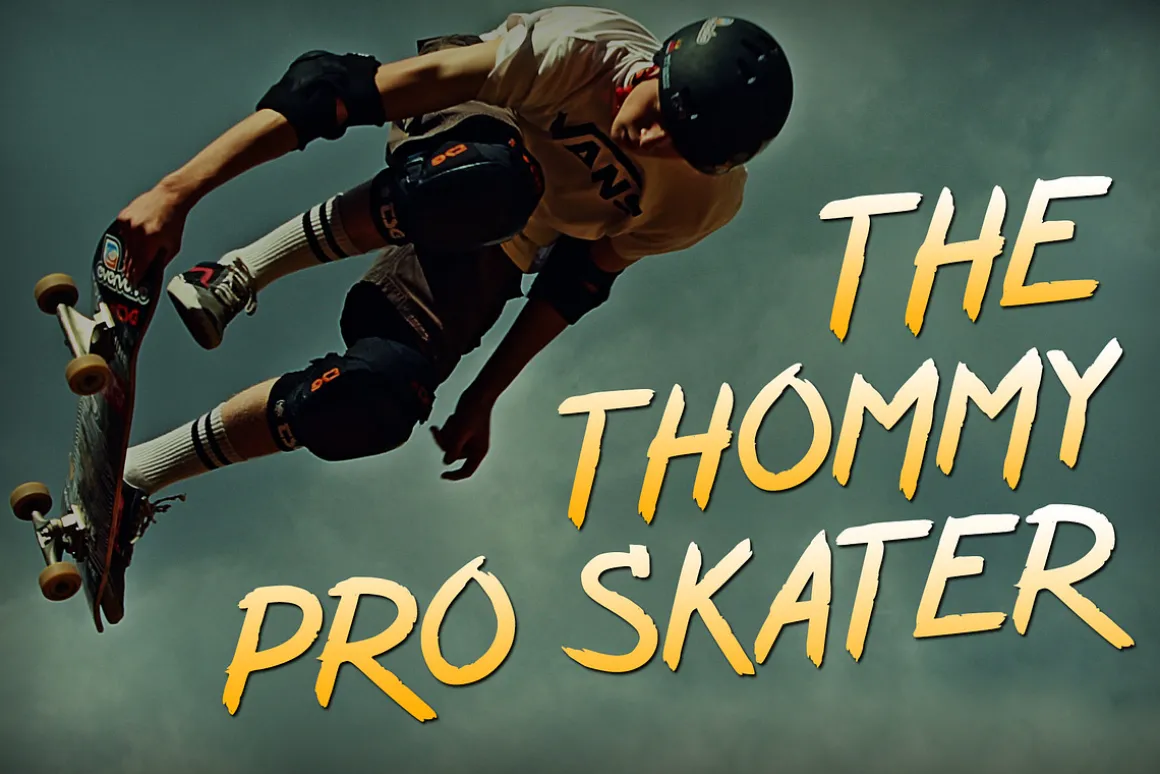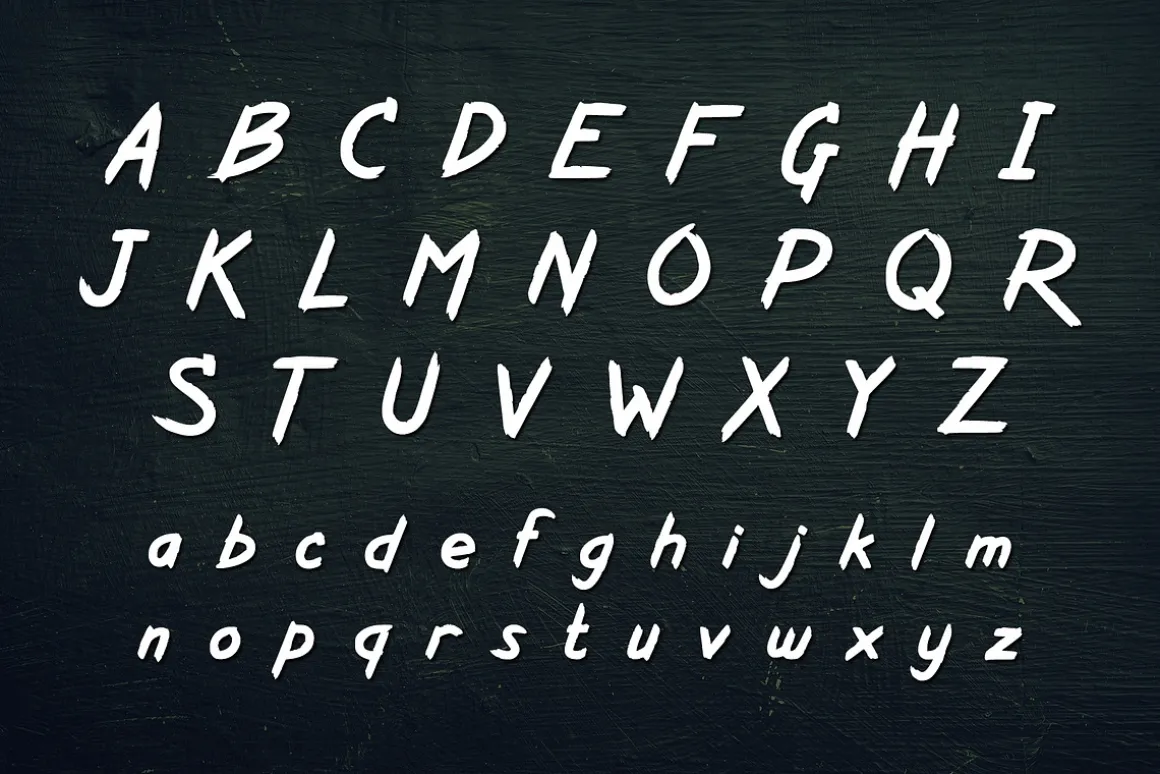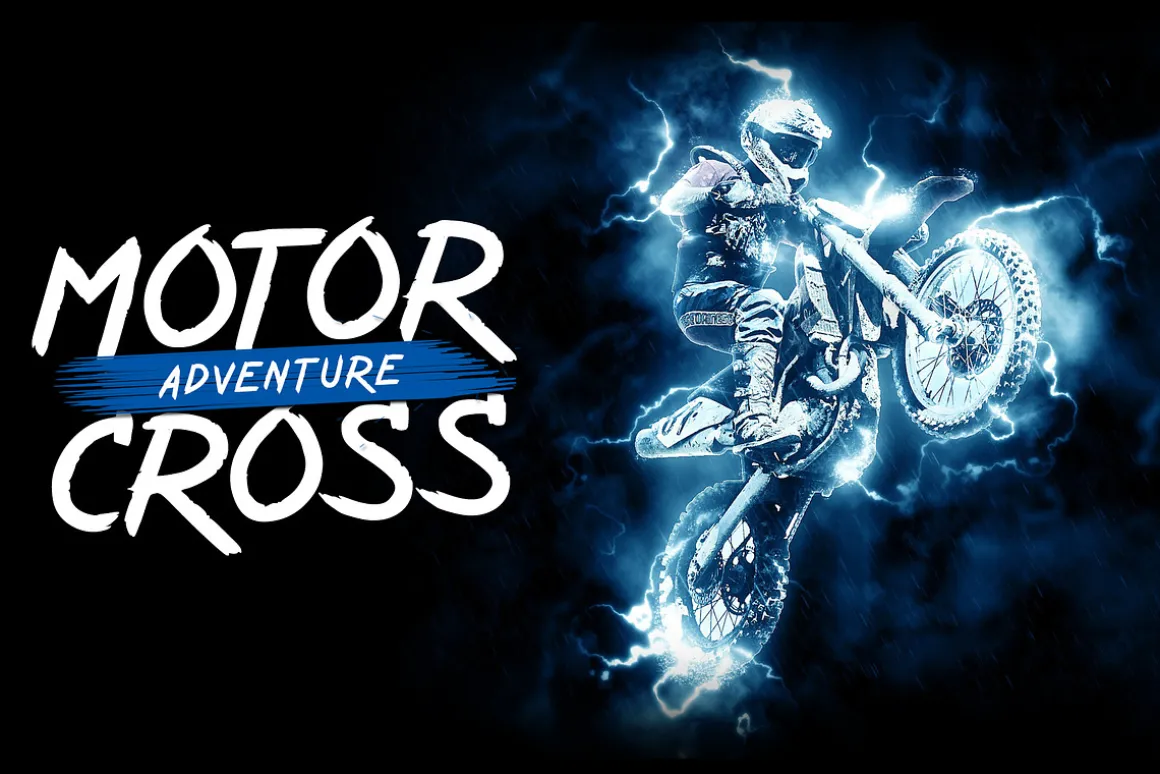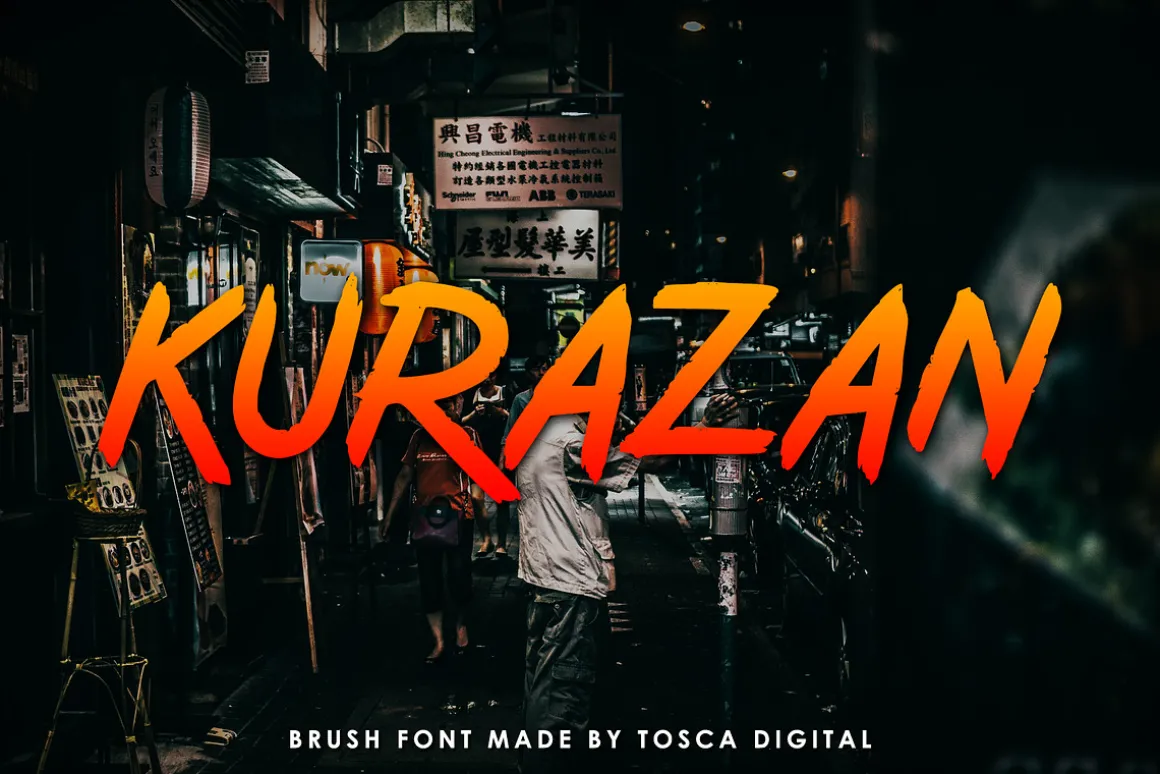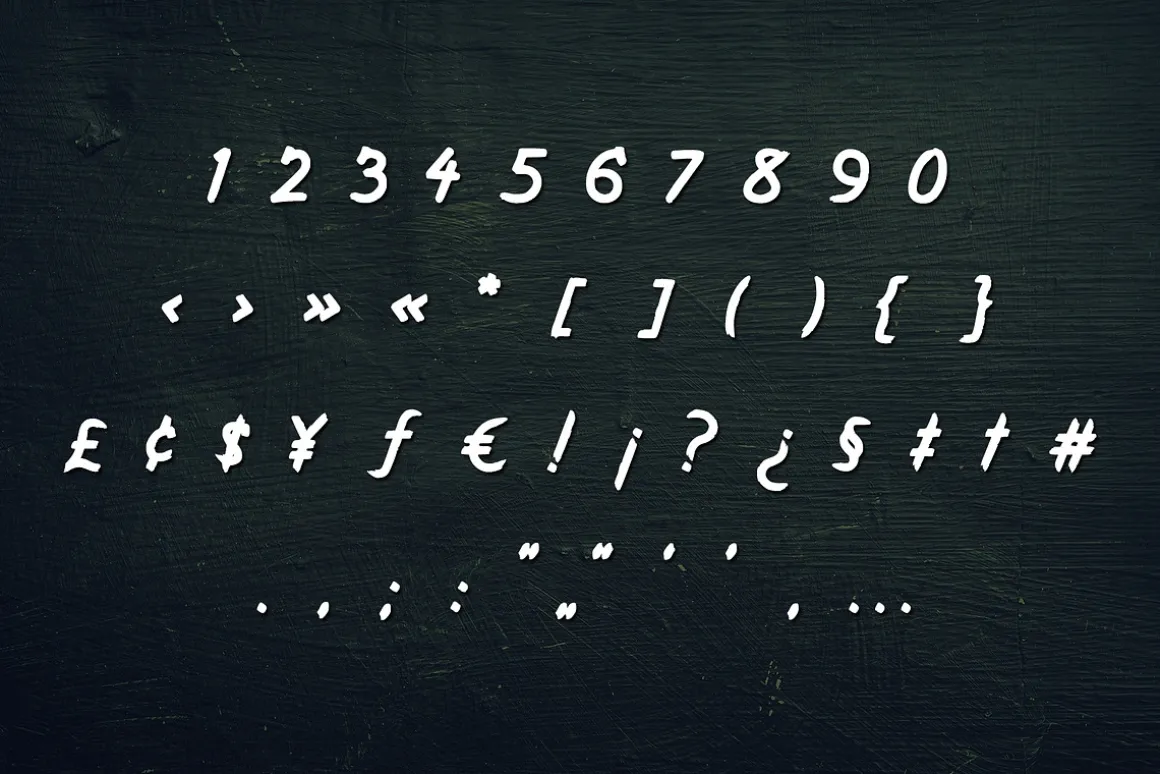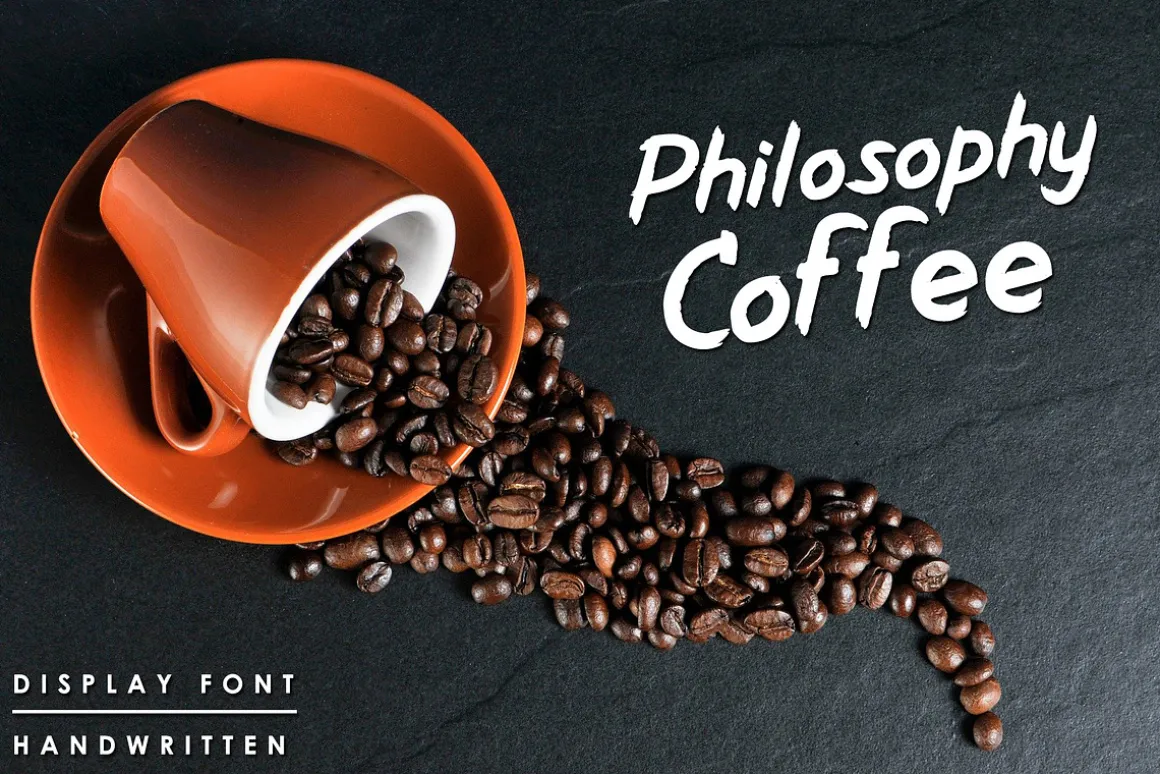
Kurazan is a fresh handwritten font brush, elegant and vintage feel character set. Font includes a full set capital and lowercase letters, as well as multi-lingual support, currency figures, numerals, & punctuation. Perfectly suited to signature, stationery, logo, typography quotes, magazine or book cover, website header, flyer, clothing, branding, packaging design and more.